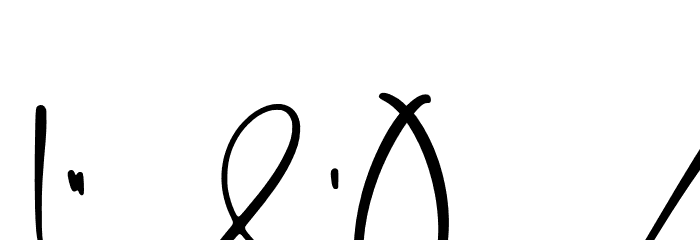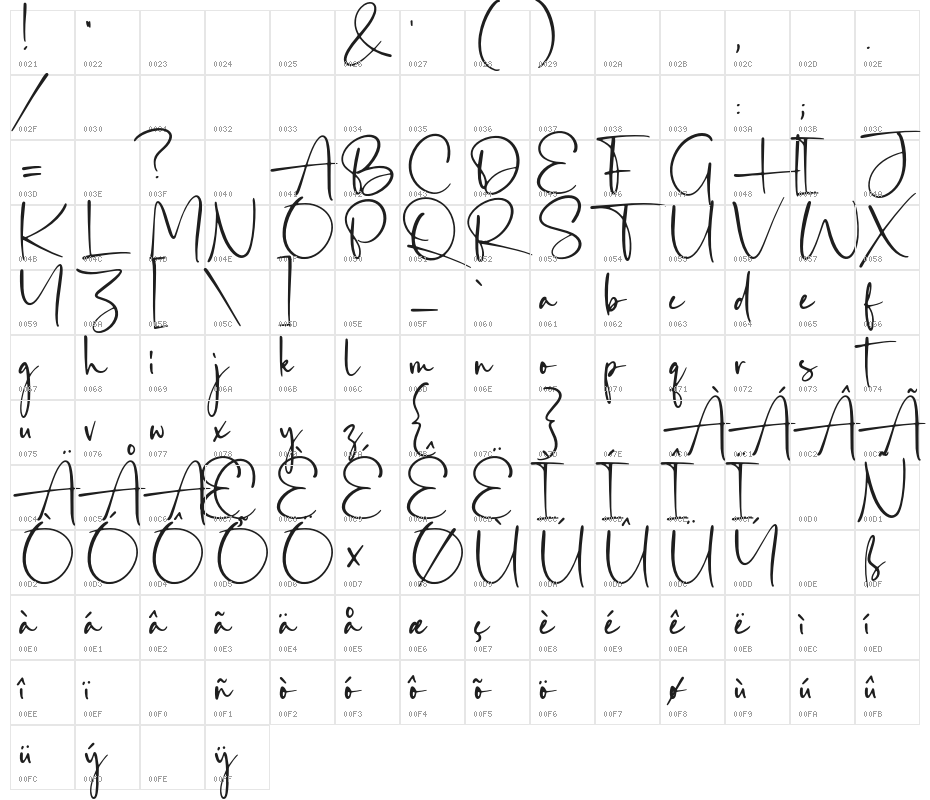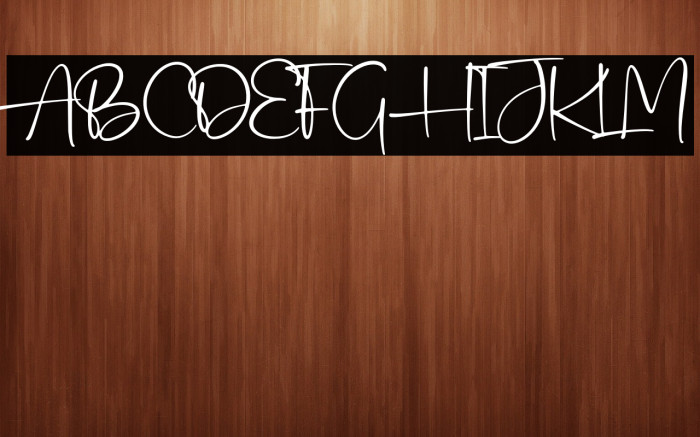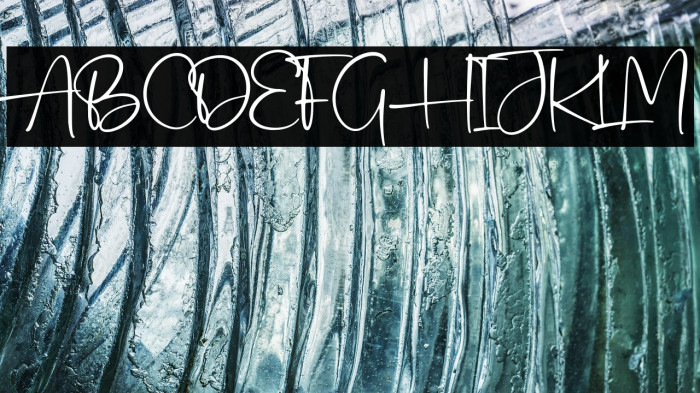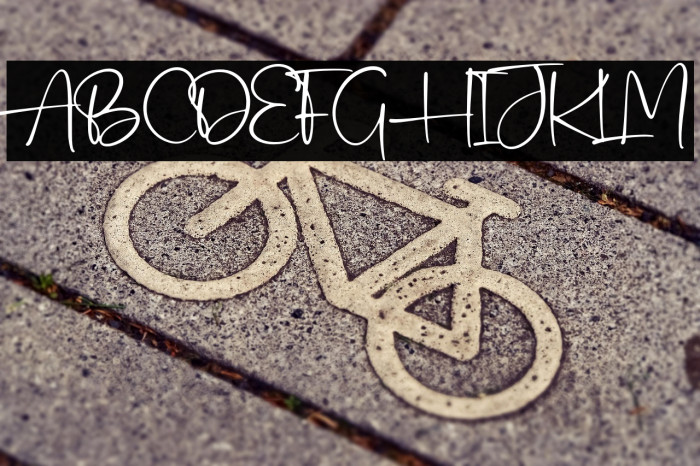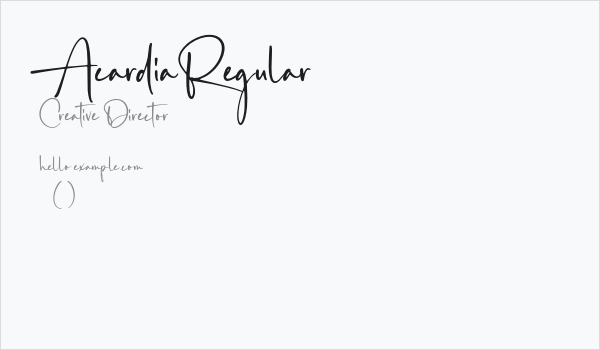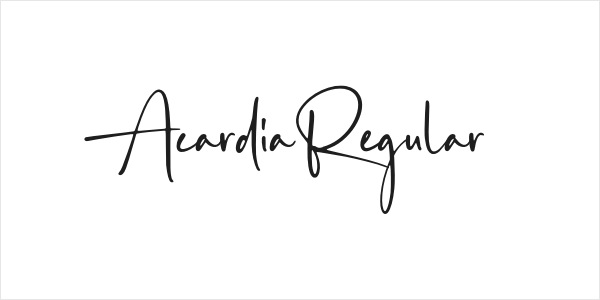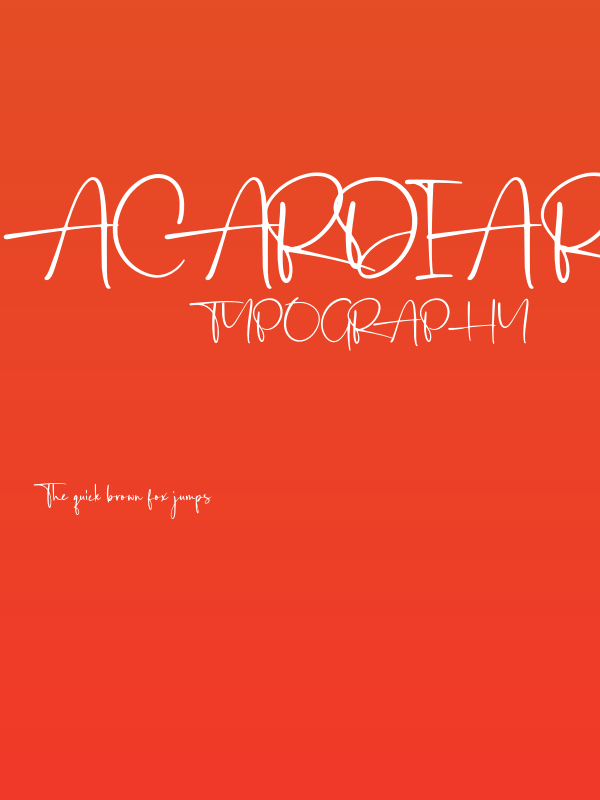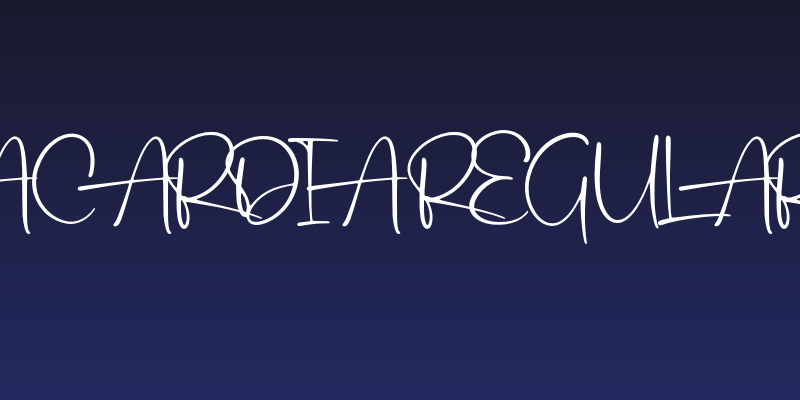
Acardia-Regular Font
Acardia-Regular Description
This font exhibits a dynamic and expressive handwritten style, characterized by its fluid and cursive letterforms. The uppercase letters are tall and slender, with a playful, slightly irregular baseline that adds a sense of movement and spontaneity. The lowercase letters maintain a consistent flow, with some characters featuring distinctive loops and swashes that enhance its artistic appeal. The numerals and special characters are crafted with the same lively energy, ensuring a cohesive look across all text. This font's unique personality makes it ideal for creative projects that require a personal touch.
| Proposed Projects | Ideal for greeting cards, invitations, personal branding, and artistic posters. |